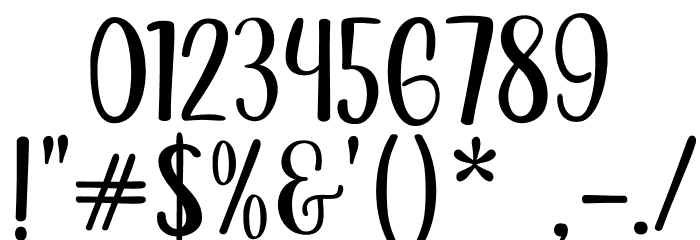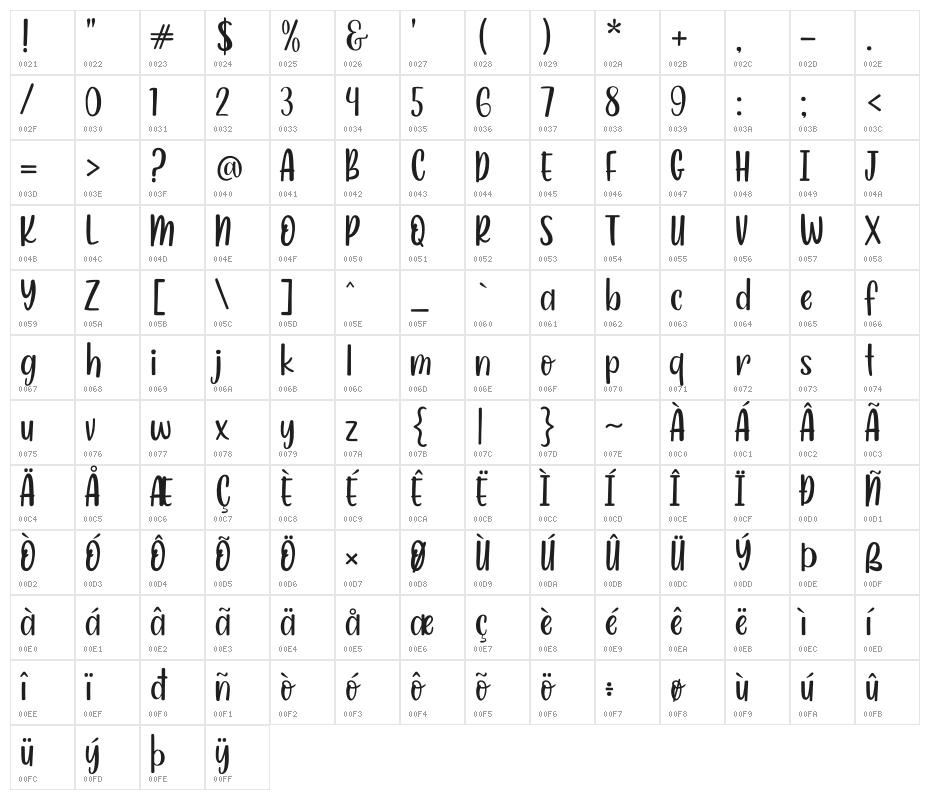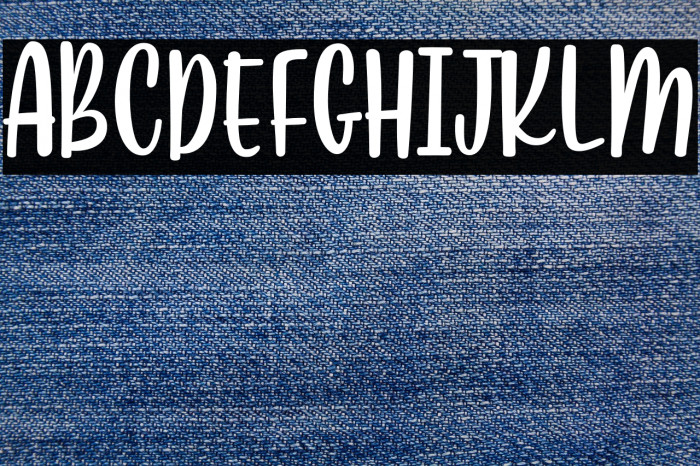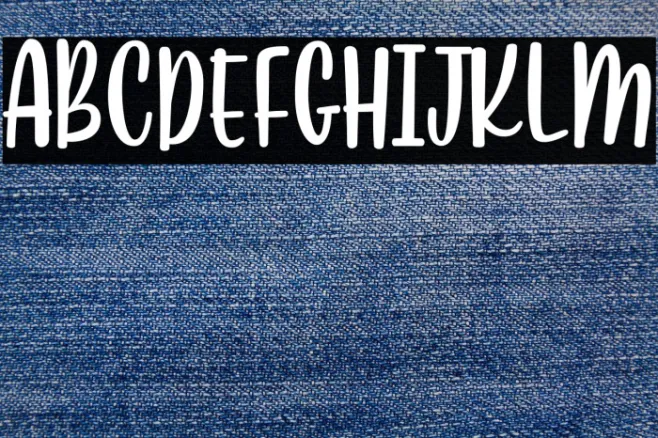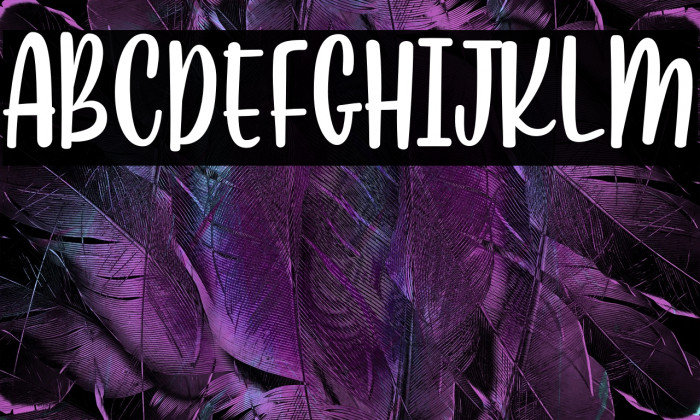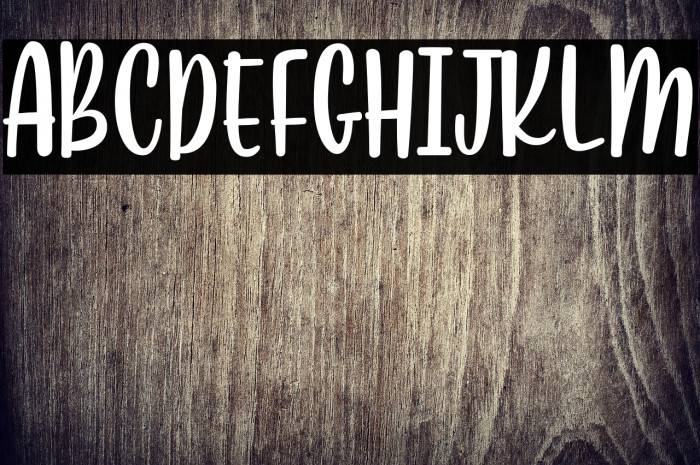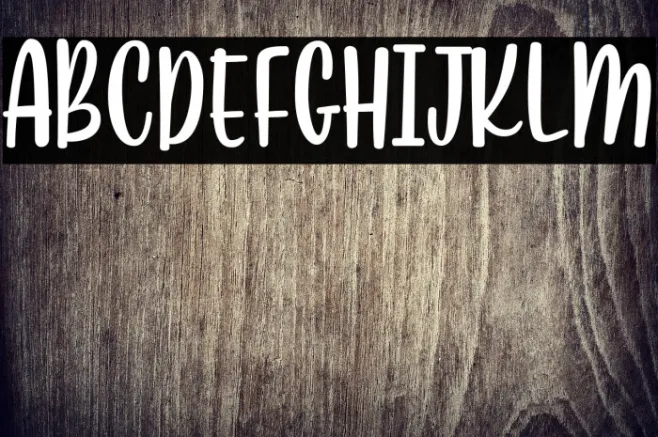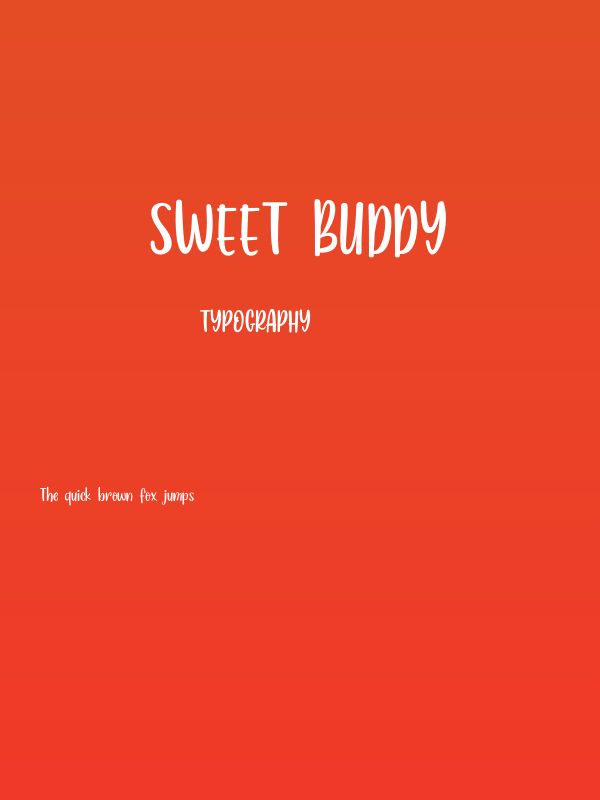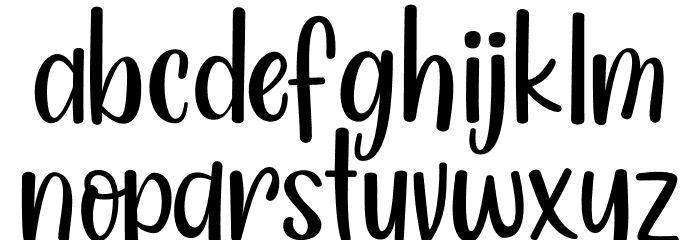
Sweet Buddy Font
Sweet Buddy Description
This playful and whimsical font features a handwritten style with a friendly and approachable appearance. The letters are bold and rounded, with a slight slant that adds a sense of movement and energy. The uppercase letters are tall and slightly narrow, while the lowercase letters maintain a consistent height, creating a harmonious balance. The numbers are similarly styled, with a playful yet clear design. Special characters are included, maintaining the same lively and engaging aesthetic. This font is perfect for projects that require a touch of fun and creativity.
| Proposed Projects | Ideal for children's books, greeting cards, playful branding, and social media graphics. |